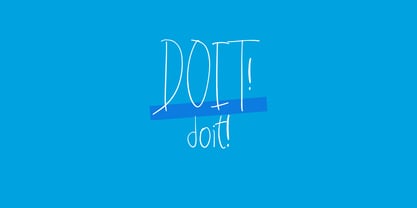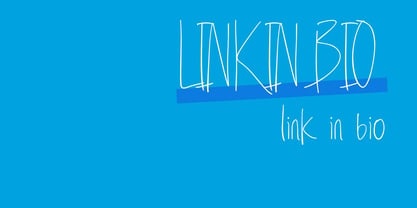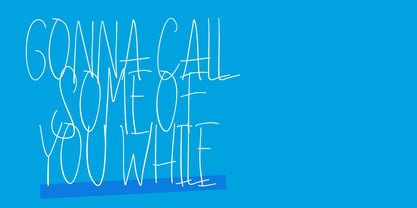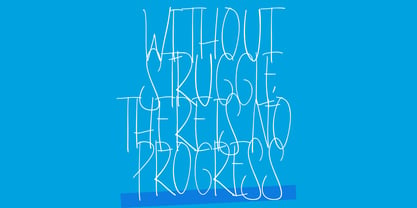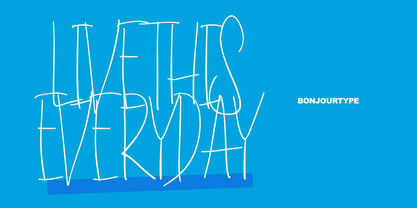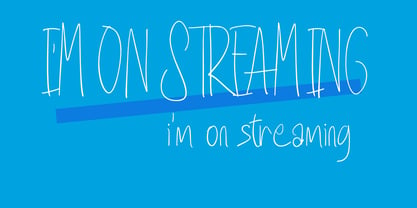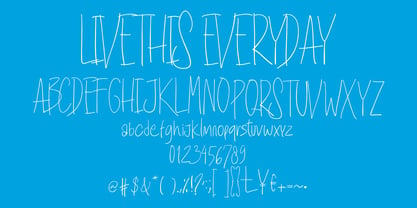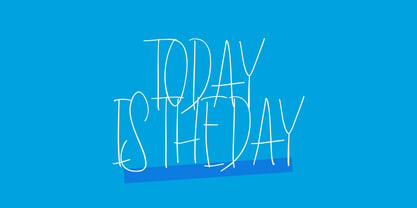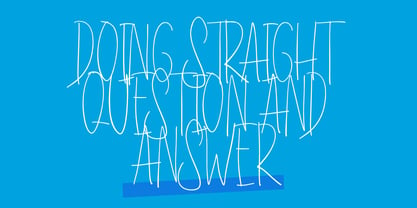
Live This Everyday
par BonjourType
La famille de polices Live This Everyday a été conçue par Rachma et publiée par BonjourType. Live This Everyday contient 1 styles. En savoir plus sur cette famille
LIVE THIS EVERYDAY is a raw and expressive handwritten font featuring tall, skinny letterforms and a spontaneous marker style. Its monoline strokes and imperfect structure create an authentic handmade feel full of personality and movement.
With its artistic, edgy, and playful character, this font is perfect for branding, posters, album covers, social media graphics, editorial layouts, and other creative projects. LIVE THIS EVERYDAY brings the energy of natural handwriting to every design.
BonjourType is a creative type foundry founded by Rachma (Rahmawati), a passionate type designer based in Banda Aceh, Indonesia. Since 2015, we’ve been committed to producing expressive, functional, and approachable typefaces — with a focus on script, brush, and handwritten styles. Our fonts are carefully crafted to add personality and clarity to a wide range of design needs, from branding and packaging to digital content and beyond. Every typeface is thoughtfully designed with attention to detail, multilingual support, and creative intent. At BonjourType, we also explore lettering, calligraphy, and visual expression — making our foundry not just a workspace, but a personal creative journey.